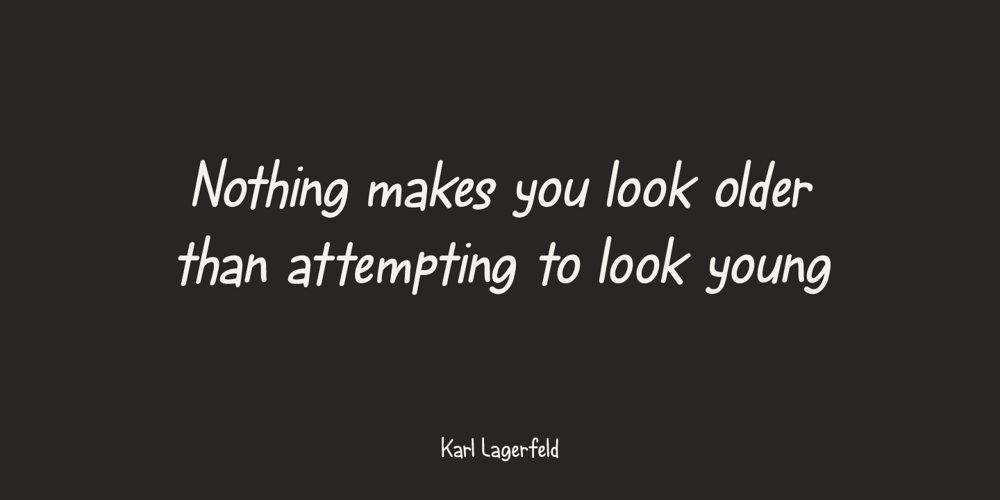
Spring Chicken Font Family was designed by David Kerkhoff and published by Hanoded. Spring Chicken contains 2 styles and family package options. The other day I discovered that, regrettably, I no longer am a Spring Chicken. Time flies when you’re making fonts… So, after I recovered from that shock, I created this font and called it Spring Chicken! Spring Chicken is a handmade cartoon-ish, script-ish, dunno-how-to-label-it-ish font. Use it and be rad.